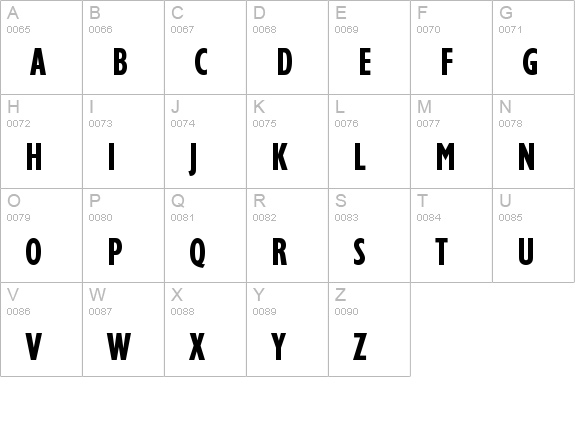
Gill Display Compressed Std Font Details
Gill Display Compressed Std is a distinctive, condensed-width variant in the Gill typeface family \xE2\x80\x94 well suited to design and typography projects.
Gill Display Compressed Std font is a sleek and modern typeface that exudes elegance and sophistication. With its condensed design, this font is perfect for creating striking headlines, titles, and other attention-grabbing text. The sharp edges and clean lines of Gill Display Compressed Std font make it ideal for adding a touch of professionalism to any design project. Best of all, Gill Display Compressed Std font is available for free download at FontsMarket.com. This means you can easily access this stylish font and use it in your creative endeavors without any cost. Don't miss out on the opportunity to enhance your designs with the timeless appeal of Gill Display Compressed Std font - download it today and elevate your typography game!